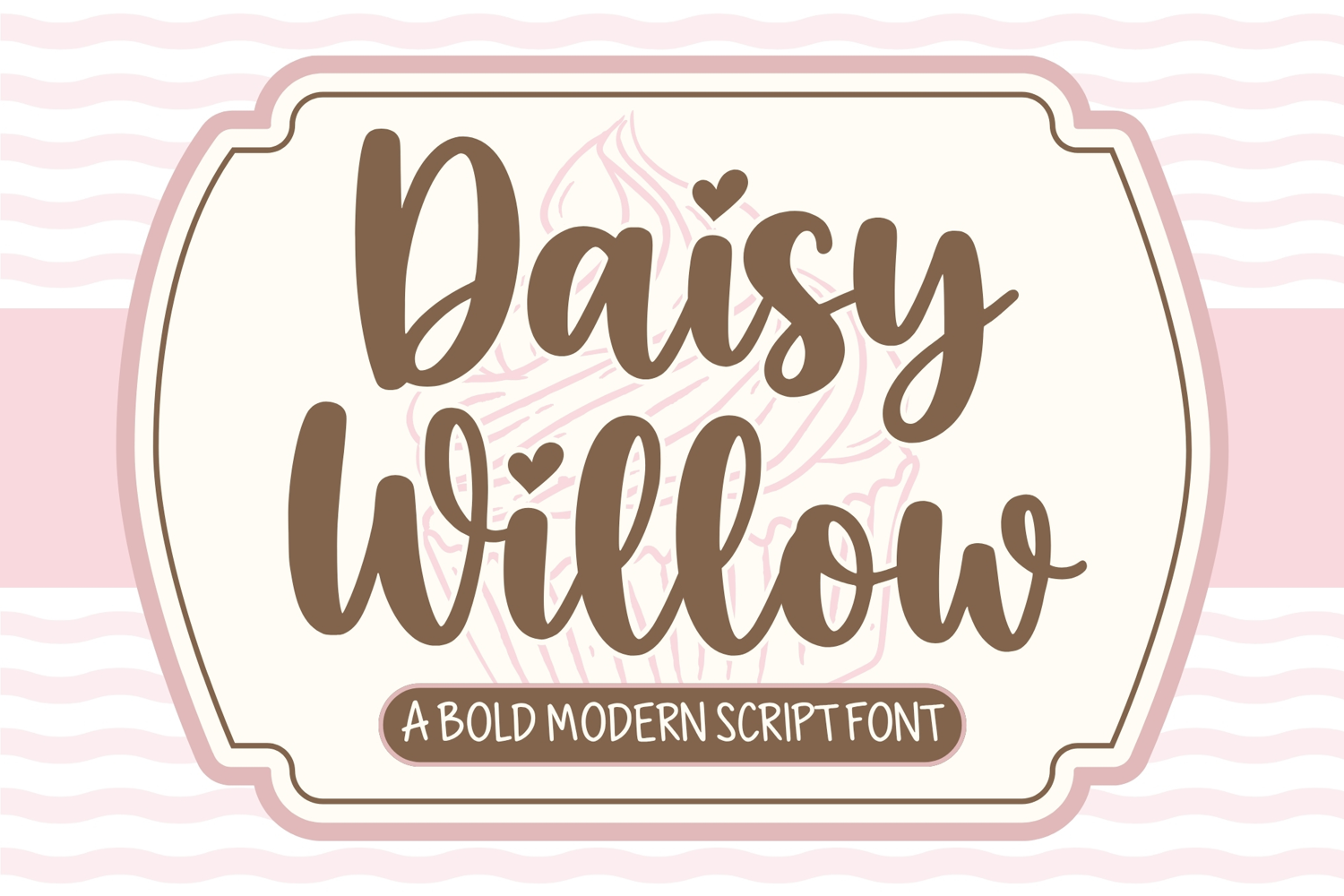
Daisy Willow is a modern script font that beautifully blends soft handwritten strokes with a romantic and elegant aesthetic. Its flowing letterforms create a natural, graceful rhythm, giving every word a feminine and sophisticated feel.
Designed with delicate curves and stylish details, Daisy Willow feels timeless and graceful like an elegant handwritten with a modern, fashion-forward touch.
Mood:
🌸 Romantic • Elegant • Feminine • Soft • Dreamy • Modern